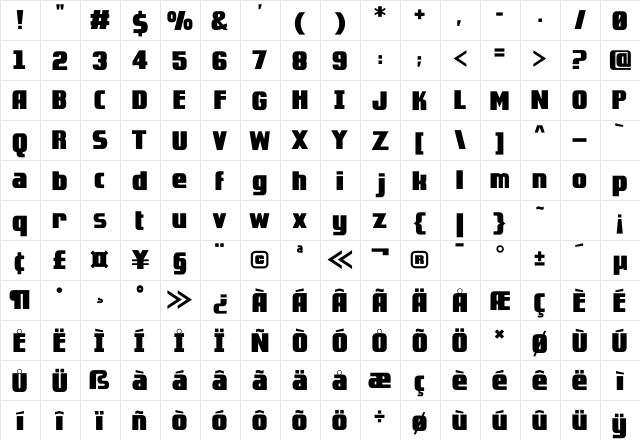
Golden Dragon Solid
Design Context for Golden Dragon Typeface
Golden Dragon offers clean, dependable letterforms without strong stylistic allegiance, making it a practical choice for designers who need flexibility.